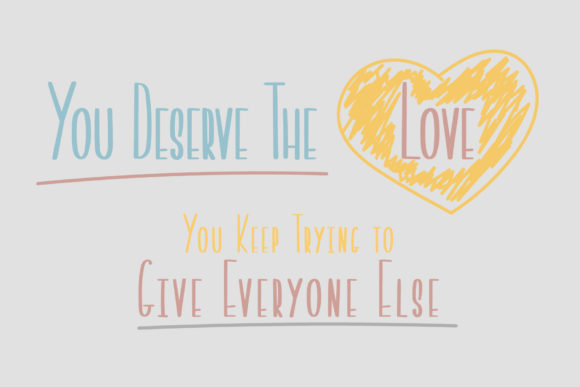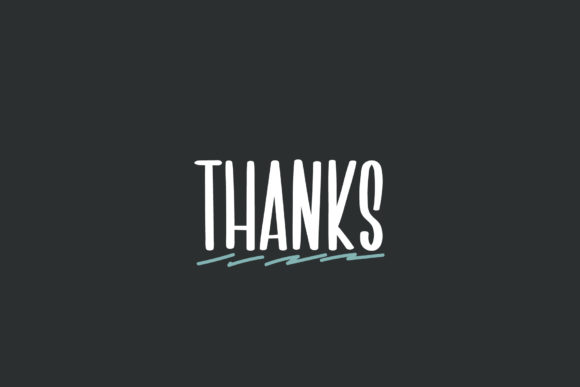
Grayson Font
About Grayson Font
Grayson is a cute and casual handwritten font with an incredibly friendly feel. Clean and a little bit quirky, this font is the perfect fit for all of your logos, branding, social media, and crafty DIY projects.